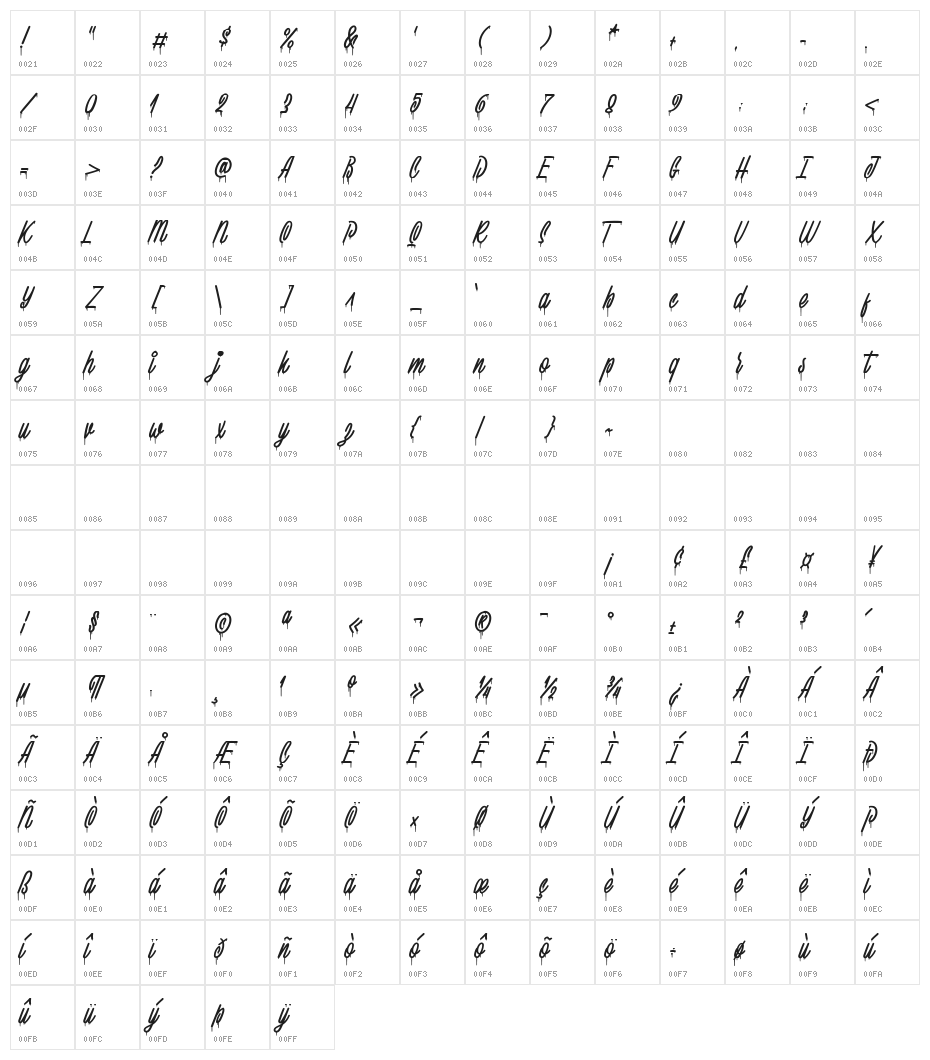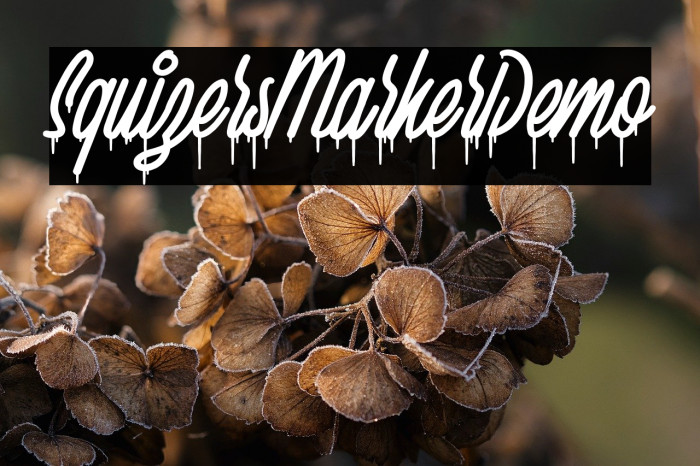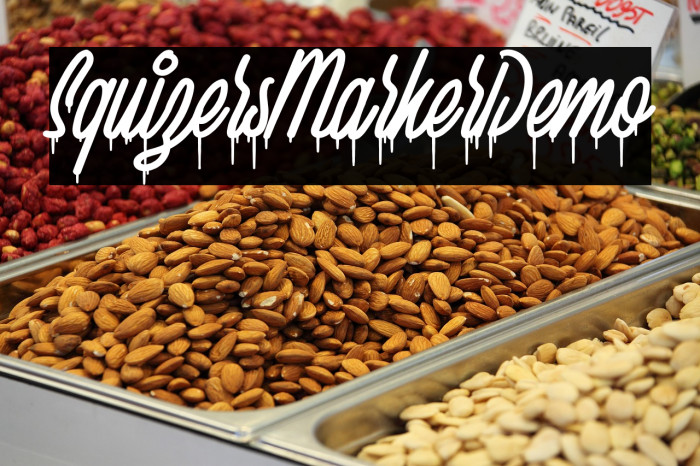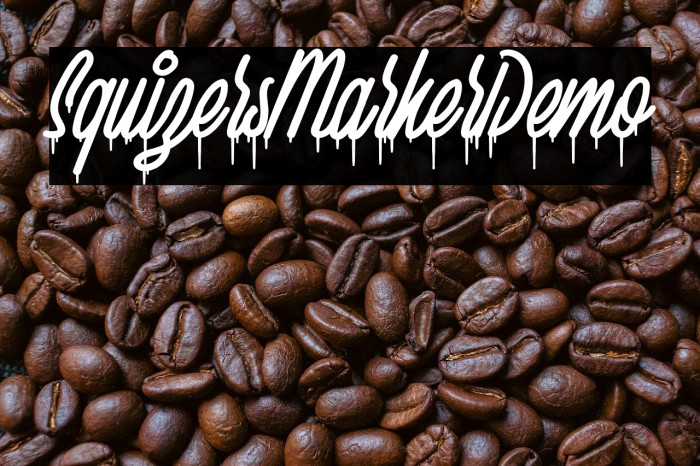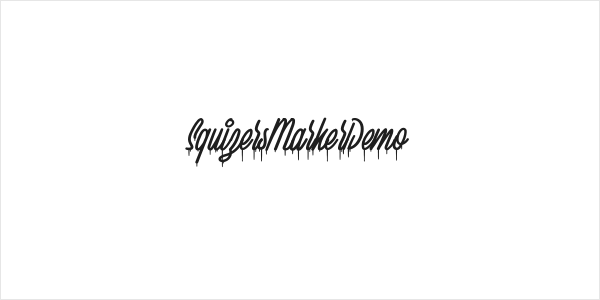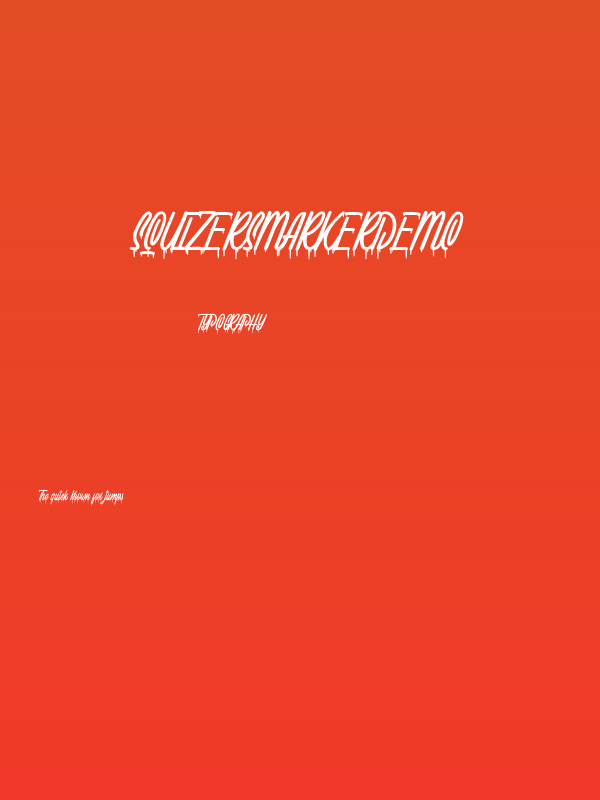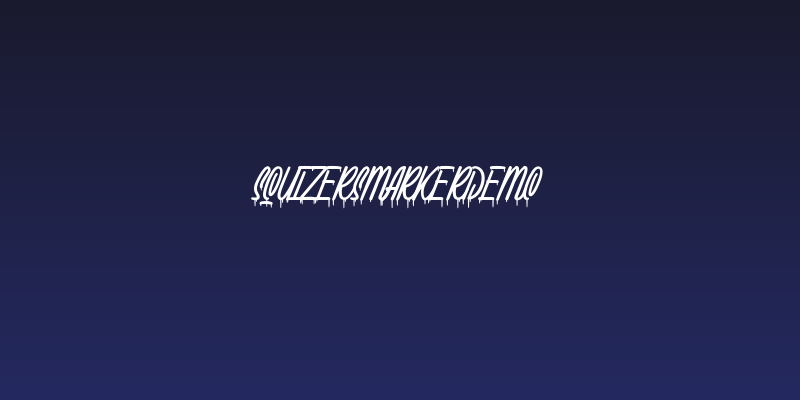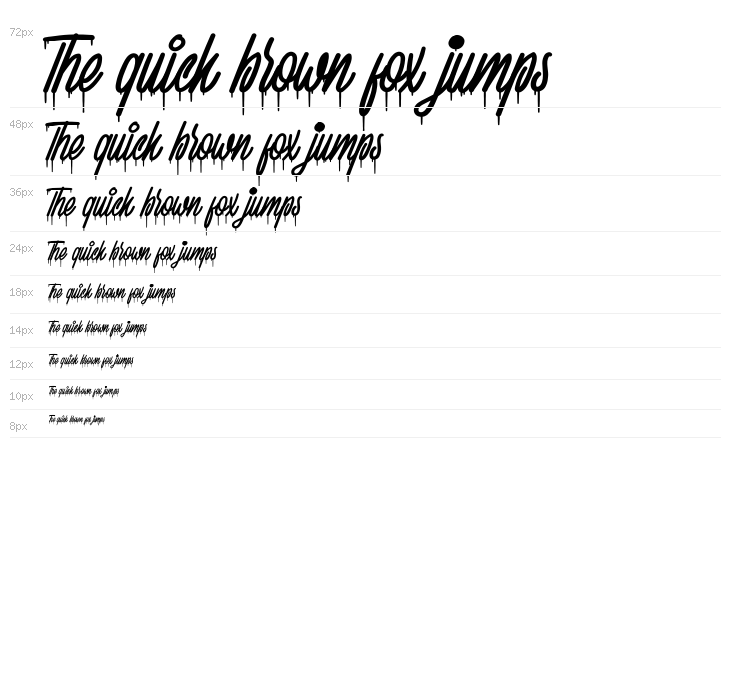
SquizersMarkerDemo Font
SquizersMarkerDemo Description
This font features a unique, graffiti-inspired style with a dripping effect that gives it a dynamic and edgy appearance. The characters are bold and slightly slanted, resembling a script style, yet maintain a structured form. The uppercase and lowercase letters are consistent in their flowing, cursive-like design, while the numbers and special characters follow the same aesthetic. The overall look is reminiscent of street art, making it stand out with its artistic flair. The font's design is perfect for projects that require a bold statement or an urban, contemporary feel.
| Overall Style | Modern, Urban, Edgy |
| Proposed Projects | Ideal for street art designs, urban-themed posters, music album covers, and edgy branding projects. |